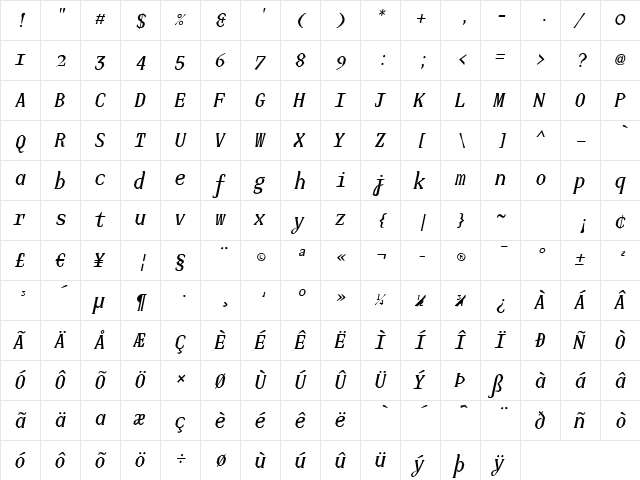
JUstice Mono Oblique
Design Context for JUstice Mono Typeface
JUstice Mono uses fixed-width spacing throughout, giving it the structured, systematic character associated with coding environments and technical documentation. Its italic angle brings a sense of urgency and motion to the letterforms.